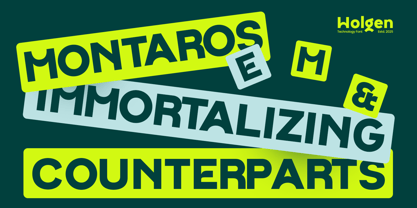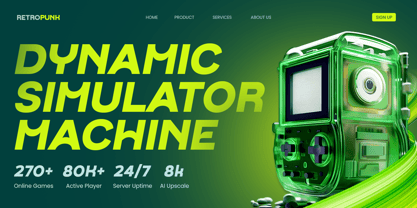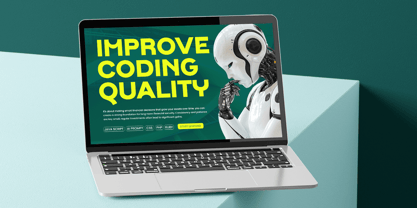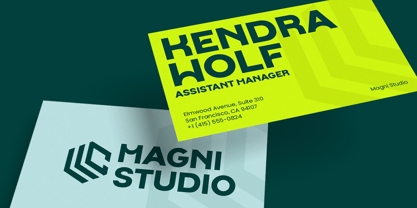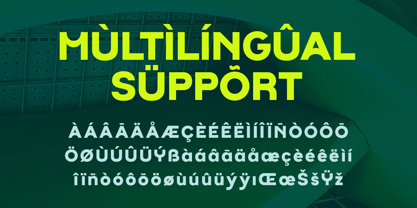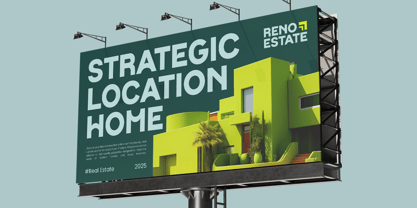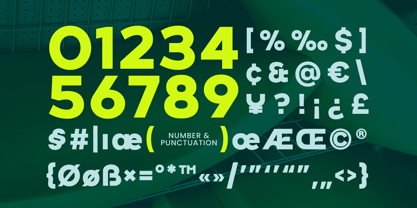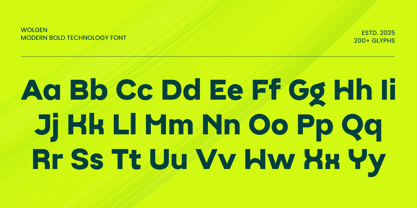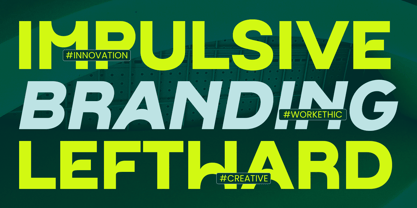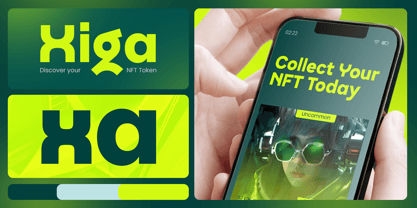
Wolgen
Wolgen is a modern bold technology font that embodies power, precision, and futuristic innovation. With its strong geometric letterforms and high-tech aesthetics, this font is perfect for technology brands, gaming titles, digital products, cyberpunk themes, and cutting-edge branding.
Designed for maximum impact, Wolgen blends sharp edges with smooth curves, creating a dynamic and highly readable typeface that works across logos, web design, app interfaces, esports branding, and sci-fi movie titles. Whether you're crafting a futuristic tech identity or a bold digital statement, Wolgen brings modern energy and advanced style to every project.
Step into the future of design with Wolgen—a font built for innovation and bold technology-driven visuals.
Wolgen - Modern Bold Technology Font Features:
• Strong, bold, and futuristic letterforms
• Ideal for tech branding, gaming, and sci-fi projects
• Punctuation, numbers, and symbols included
• Uppercase and lowercase letters
• OpenType features for added creativity
Multilingual support for:
Afrikaans, Albanian, Basque, Breton, Catalan, Croatian, Czech, Danish, Dutch, English, Estonian, Finnish, French, Galician, German, Hungarian, Icelandic, Indonesian, Irish, Italian, Latvian, Lithuanian, Luxembourgish, Maltese, Norwegian, Polish, Portuguese, Romanian, Slovak, Slovenian, Spanish, Swedish, Turkish, Welsh, and more.